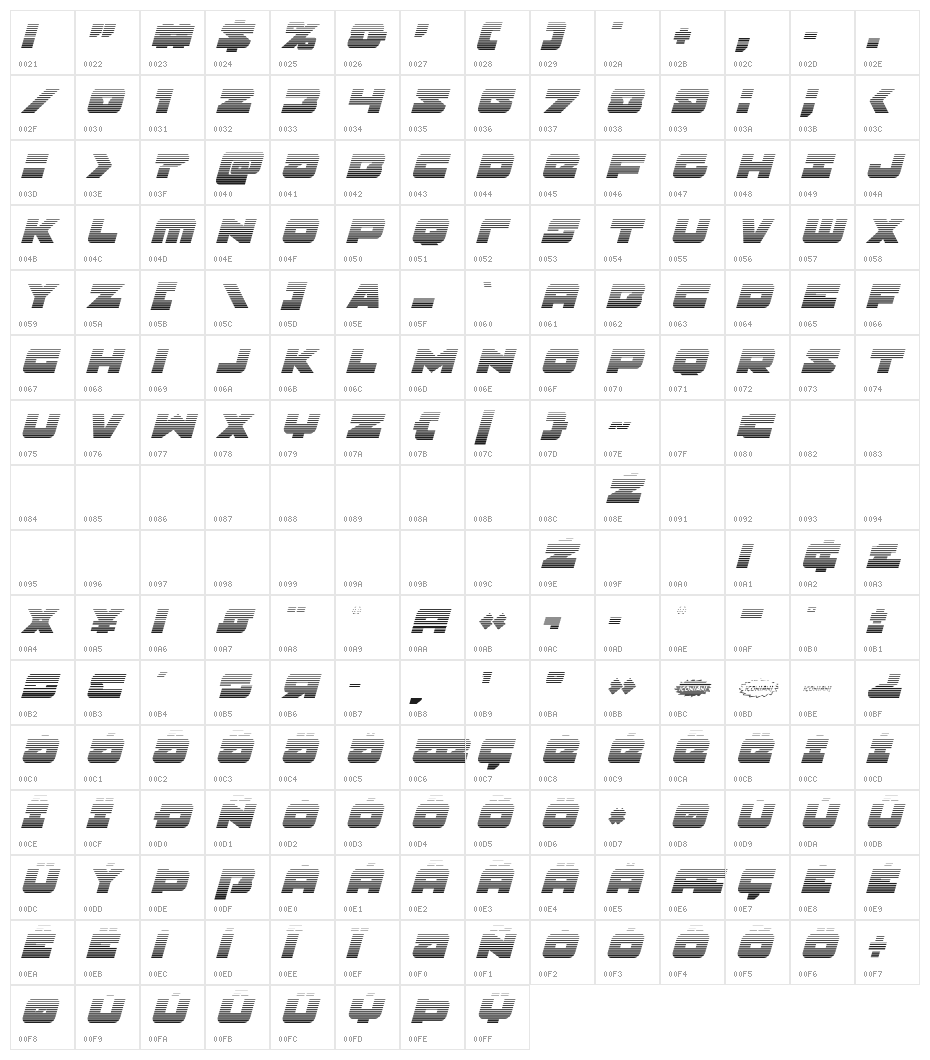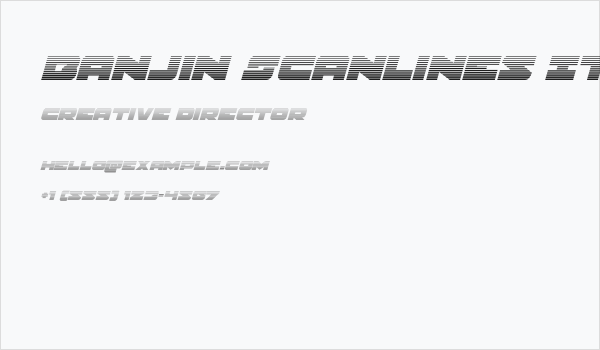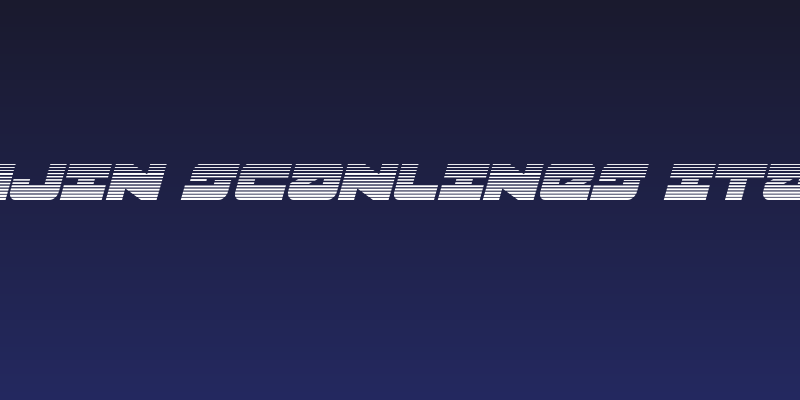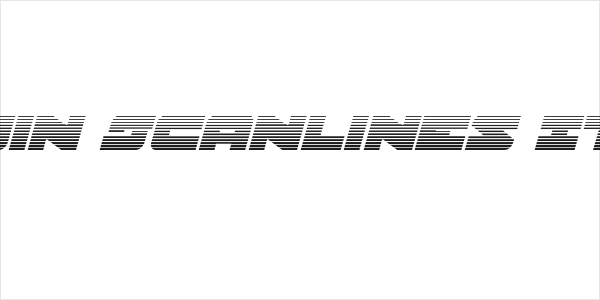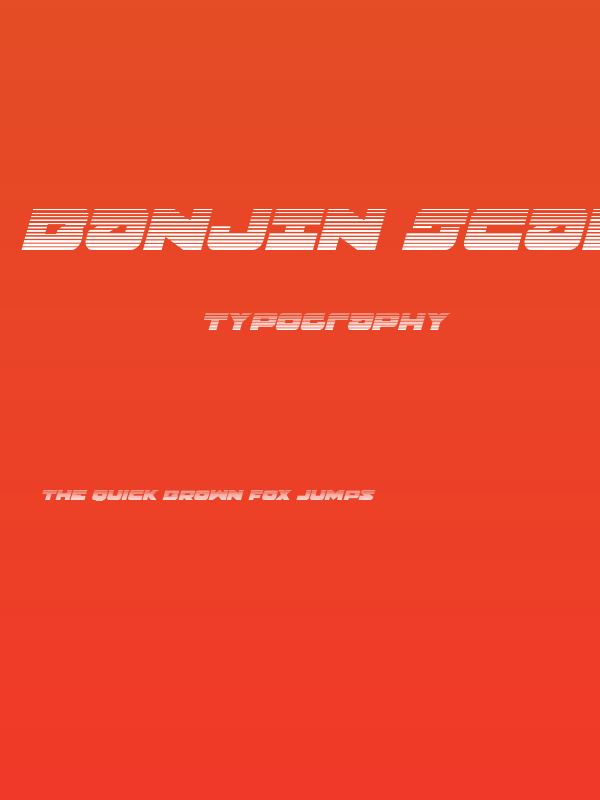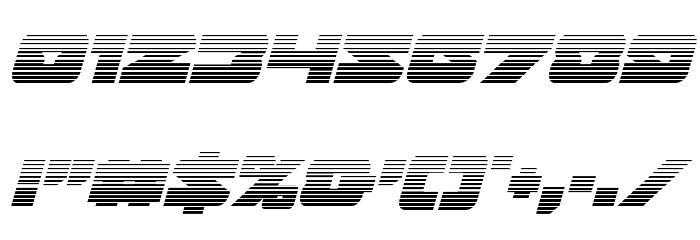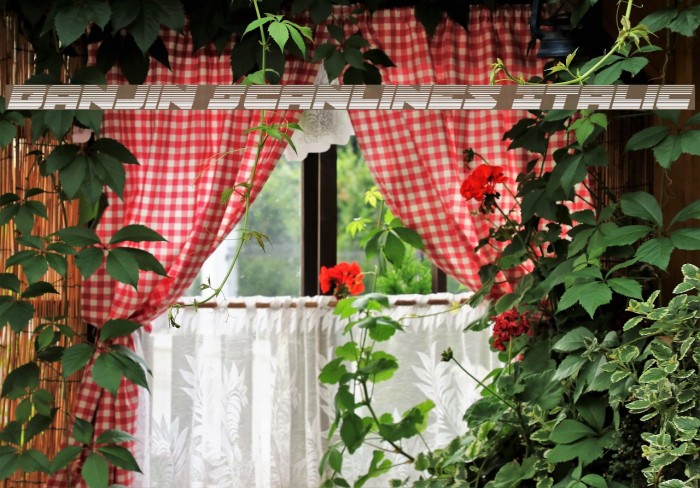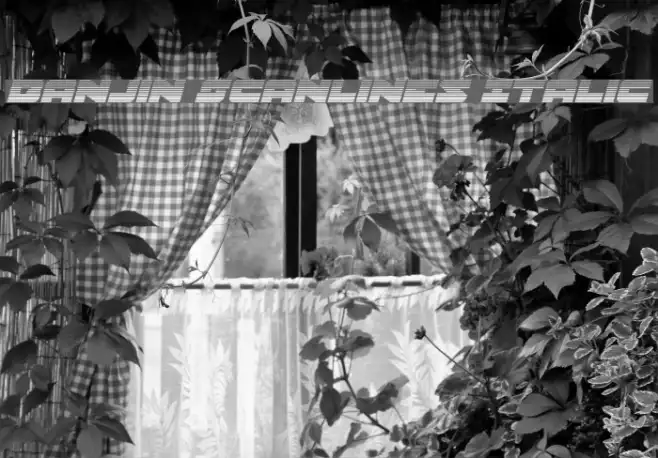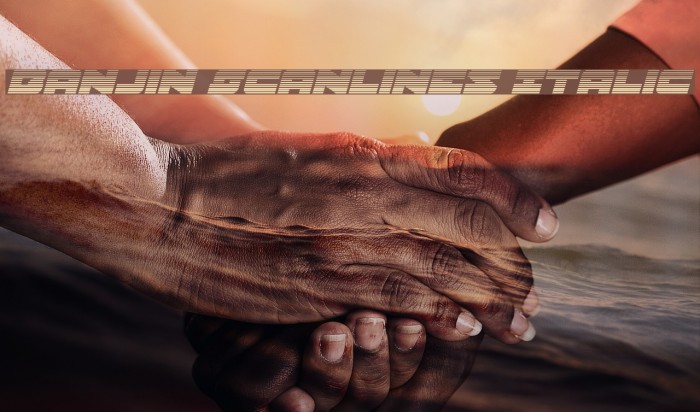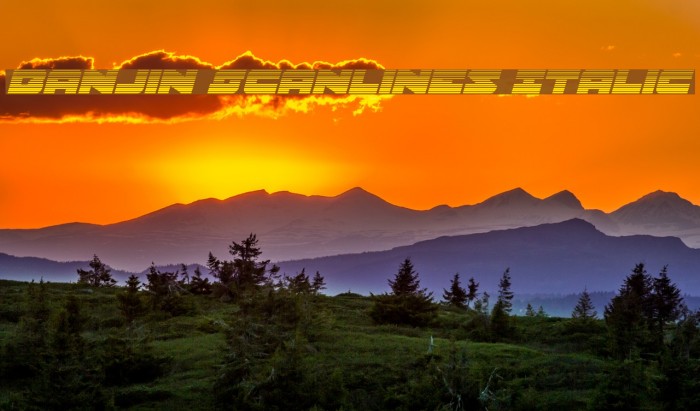
Banjin Scanlines Italic Font
Banjin Scanlines Italic Description
This font features a dynamic and futuristic design with a scanline effect running horizontally across each character. The italicized style adds a sense of motion and speed, making it ideal for projects that require a modern and tech-savvy appearance. The characters are bold and wide, with a consistent line pattern that creates a cohesive look. The uppercase and lowercase letters, along with numbers and special characters, maintain this unique style, ensuring versatility across different uses.
| Proposed Projects | Ideal for technology branding, video game titles, sci-fi posters, and digital media projects. |